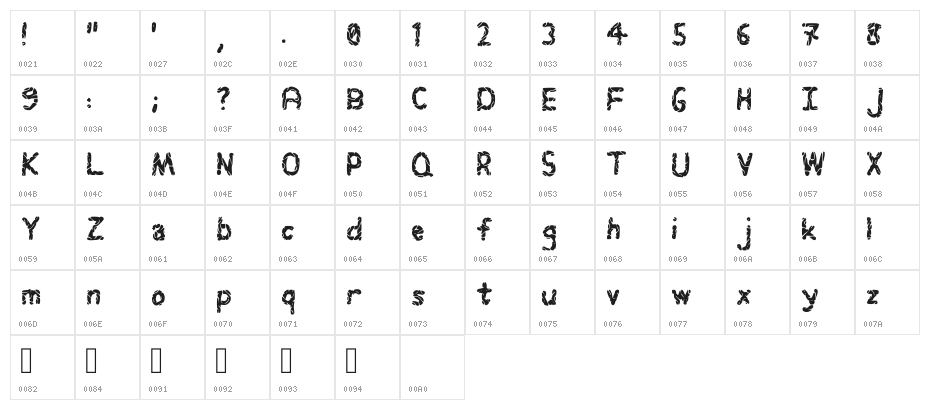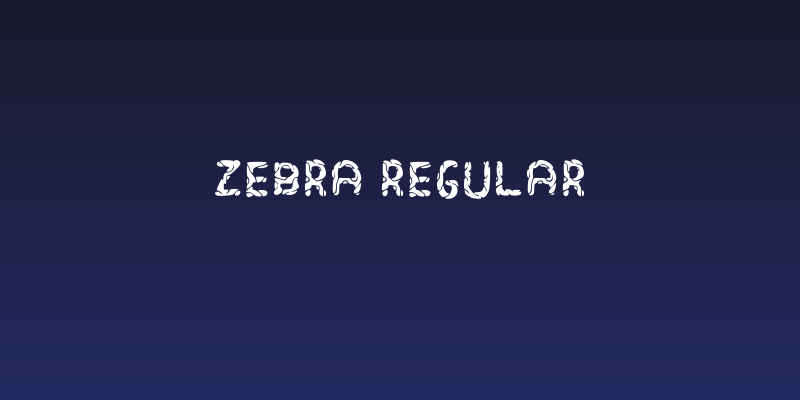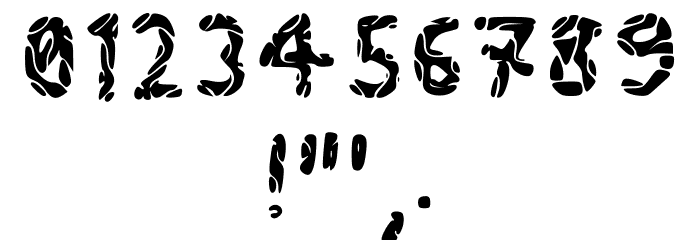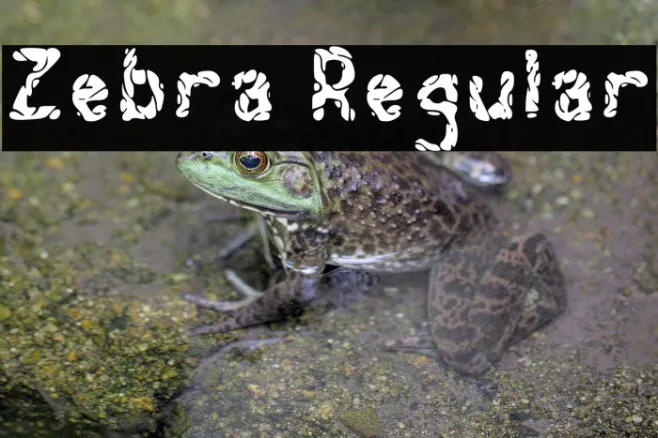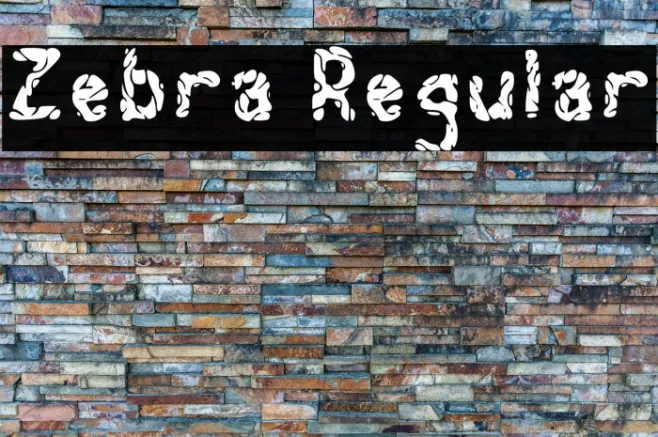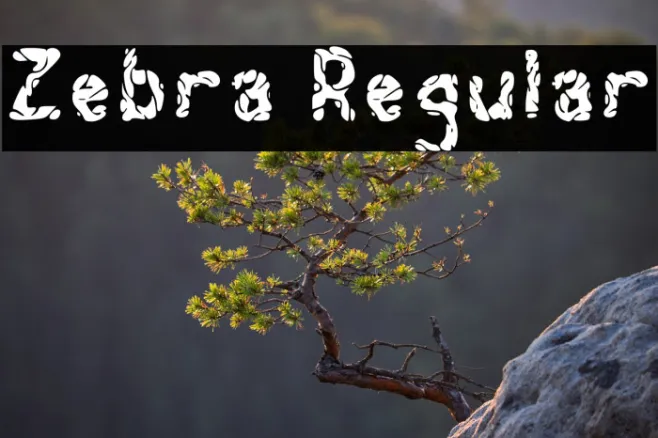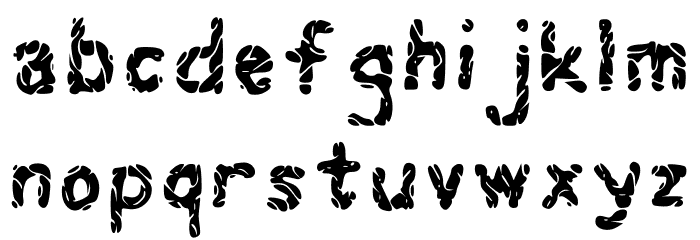
Zebra Regular Font
Zebra Regular Description
This font features a bold and playful design with a distinctive pattern reminiscent of zebra stripes. Each character is filled with irregular black and white shapes, creating a dynamic and eye-catching appearance. The uppercase and lowercase letters maintain a consistent style, with rounded edges and a slightly whimsical touch. Numbers and special characters follow the same design principles, ensuring uniformity across all glyphs. The font's unique aesthetic makes it ideal for creative and artistic projects, where a bold statement is desired.
| Use Case | Logos, Posters, Creative projects |
| Proposed Projects | Ideal for children's book covers, playful branding, creative posters, and artistic projects that require a bold and unique typeface. |